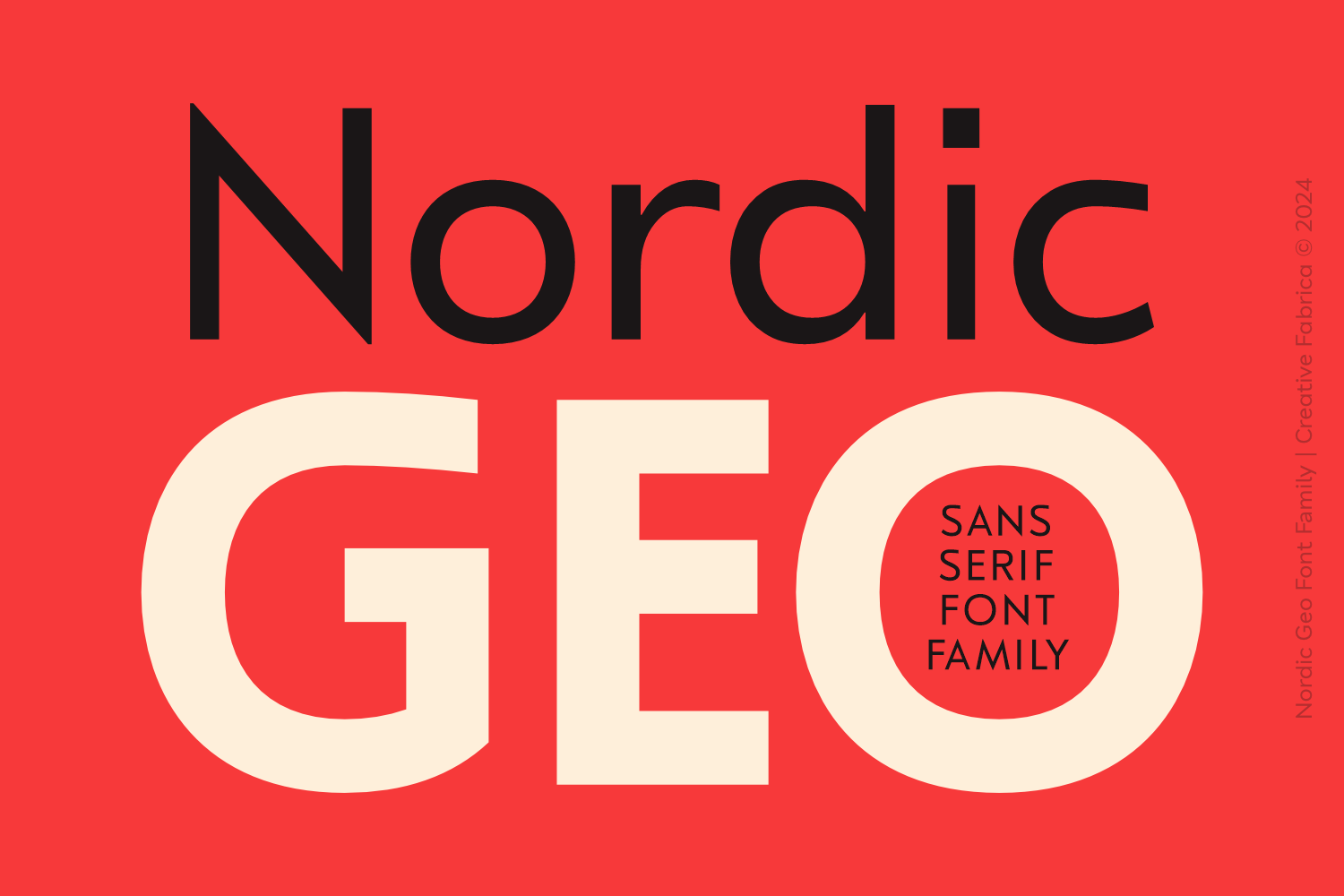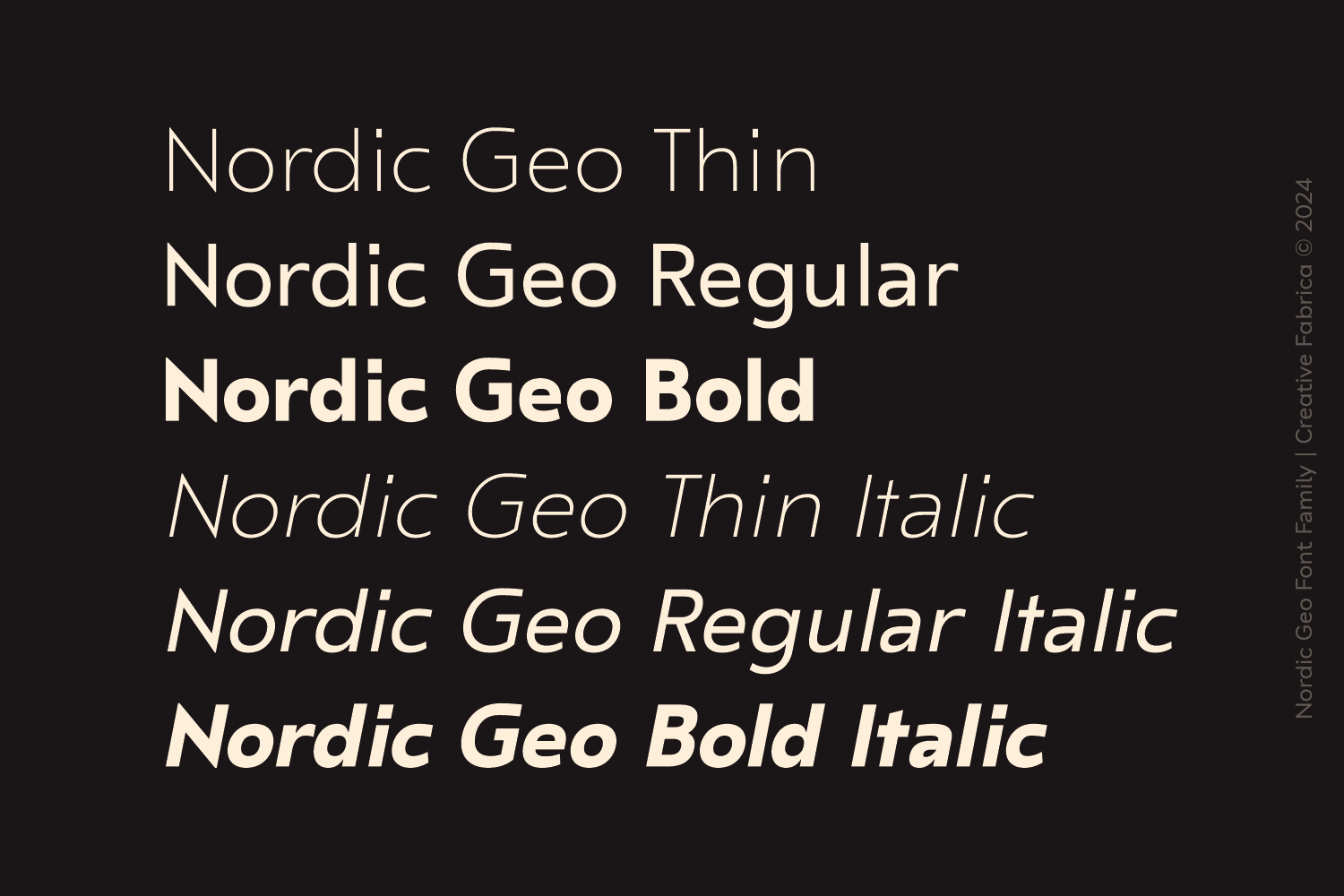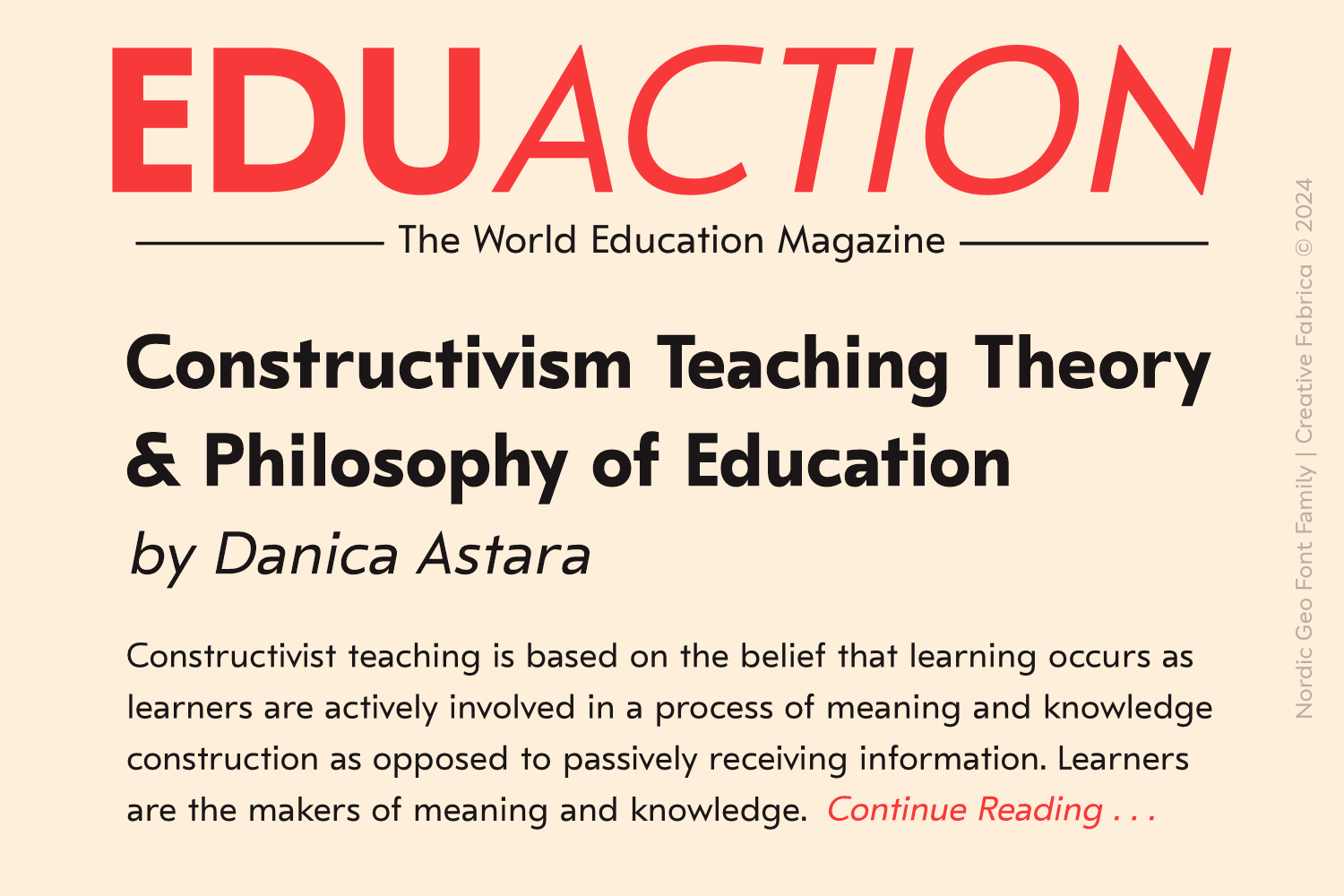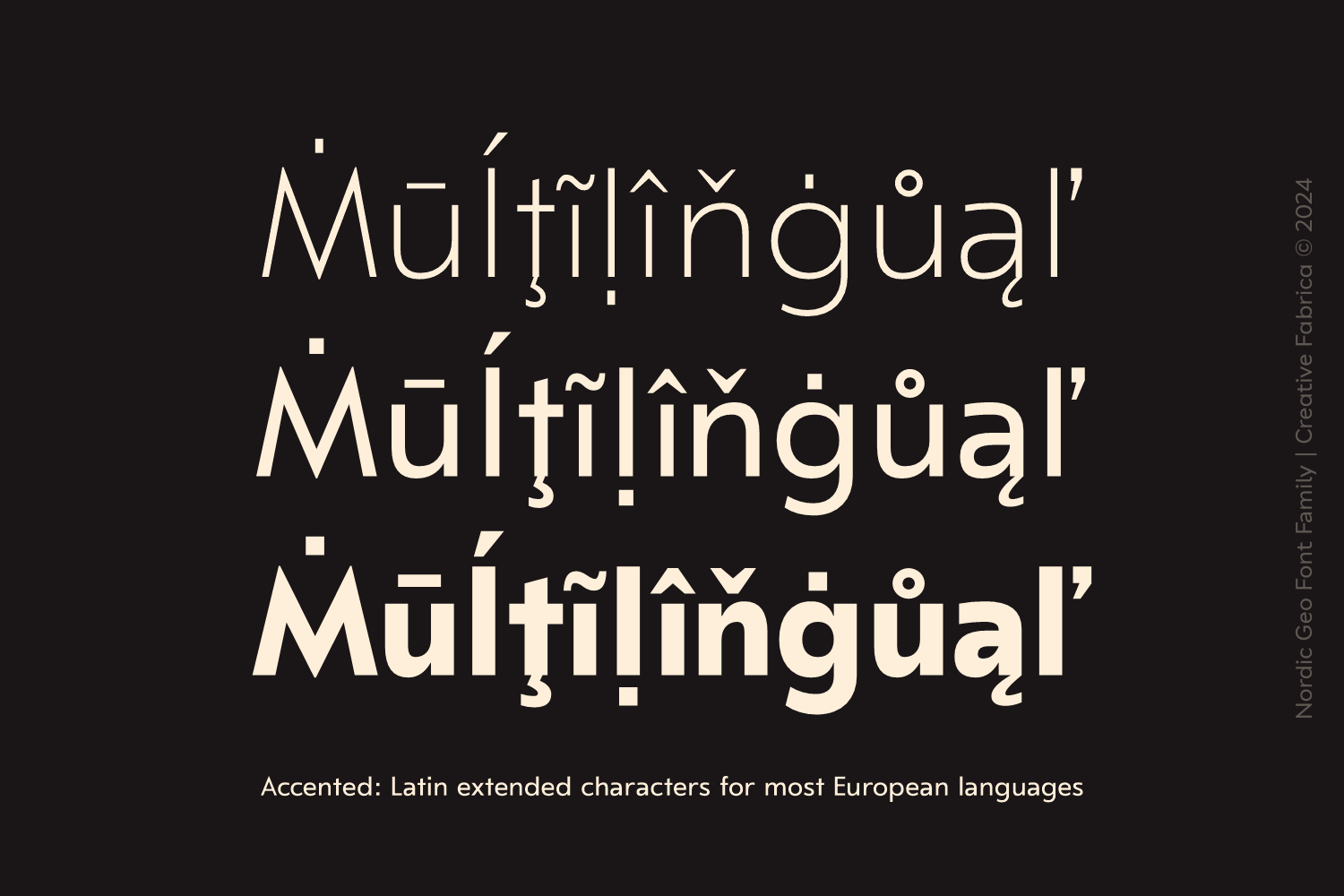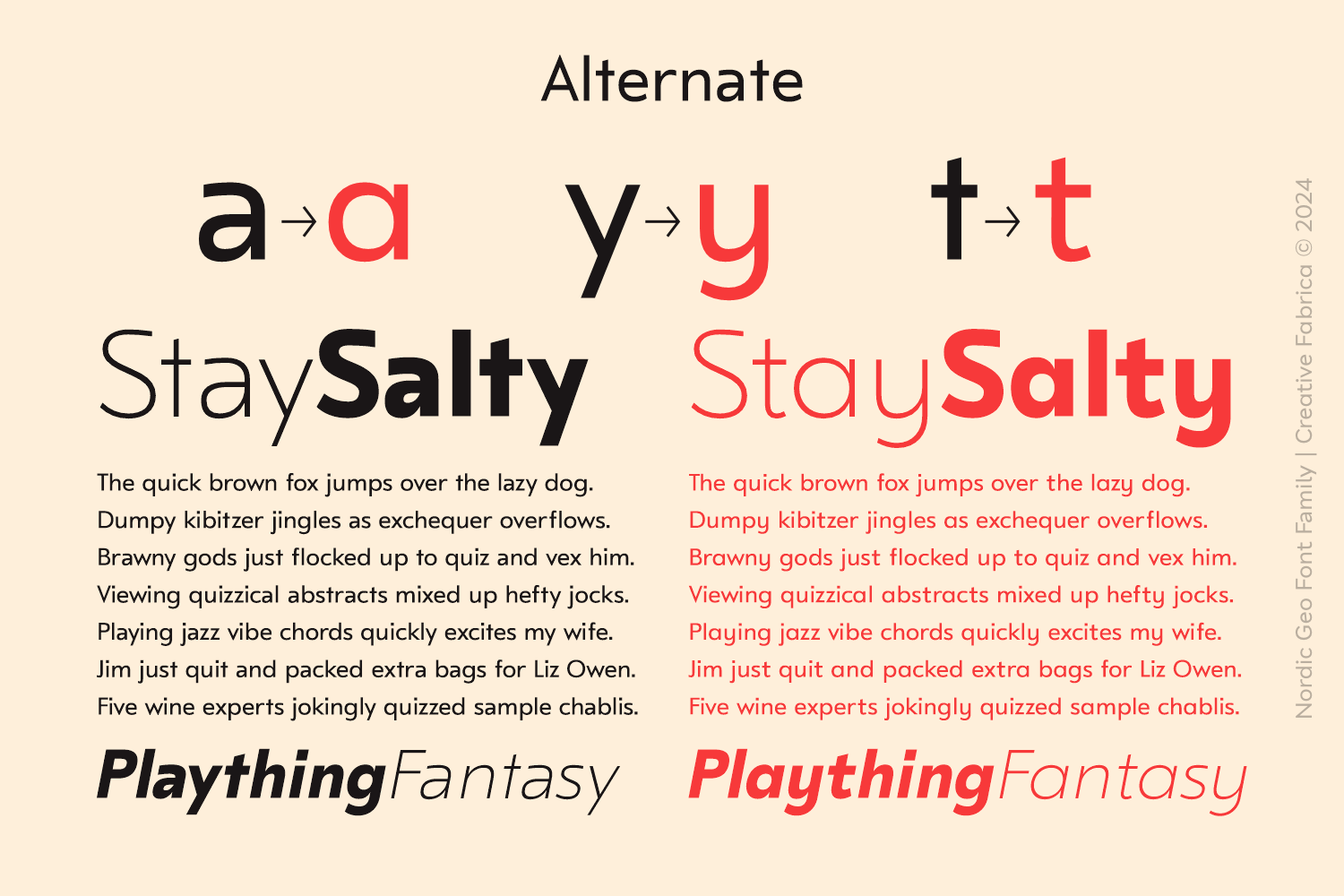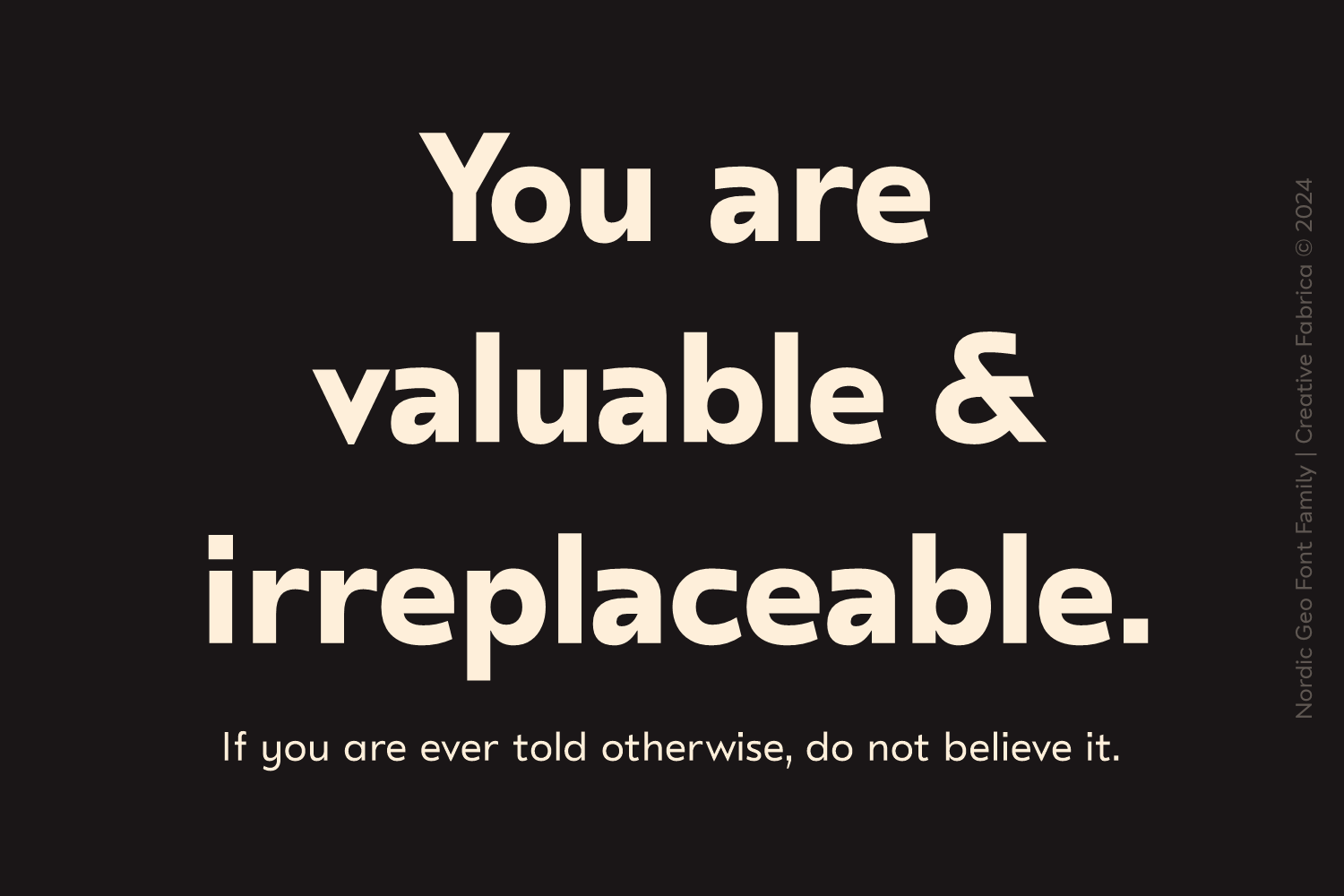
Nordic Geo Font
Nordic Geo is a modern geometric sans-serif typeface inspired by the clean and functional design of GT Eesti. With its crisp lines, minimalist shapes, and subtle Nordic influences, Nordic Geo delivers exceptional clarity and sophistication, making it ideal for branding, editorial design, and digital interfaces. Its balanced proportions and versatile style ensure seamless adaptability across a wide range of applications, offering a contemporary edge to your creative projects.